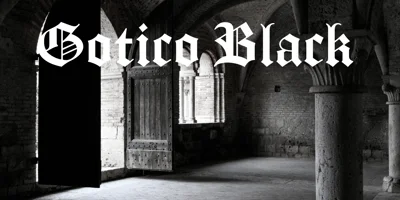
Gotico Font
Gotico Font is ideal for cathedral architecture signage, medieval manuscript reproductions, religious ceremony materials, historical document designs, gothic revival branding, monastery gift shop graphics, ecclesiastical publishing, heritage museum displays, sacred music album covers, and any reverent project that honors the magnificent tradition of Gothic architectural and typographic heritage.
What makes Gotico Font exciting is its authentic recreation of medieval blackletter craftsmanship that transports viewers to the soaring heights of Gothic cathedrals and illuminated scriptoriums. This typeface embodies the spiritual devotion of medieval scribes with carefully constructed letterforms that echo the vertical aspirations of Gothic architecture and the sacred beauty of handwritten psalters. The font's ecclesiastical character makes it perfect for brands and projects that want to communicate tradition, reverence, and the timeless majesty of sacred artistry.
The Gotico Font family includes multiple weights and historical variations, featuring regular, bold, and ornamental versions along with decorative initials, religious symbols, and alternate characters inspired by authentic medieval manuscripts. This comprehensive collection allows designers to create historically accurate typography that maintains the font's signature sacred character while providing flexibility for various religious and heritage design applications.
When exploring authentic medieval typography, Gotico Font offers designers an exceptional opportunity to work with a typeface that genuinely captures the spirit of Gothic craftsmanship and religious devotion. This font demonstrates meticulous attention to historical accuracy, with letterforms carefully researched and crafted to reflect the authentic character of medieval blackletter traditions and monastic calligraphy.
Professional designers value Gotico Font for its ability to instantly establish historical authority and spiritual gravitas across various media platforms. The font's sacred character makes it particularly effective for religious institutions, heritage organizations, and cultural projects seeking to communicate reverence, tradition, and the enduring power of medieval artistic excellence.
The timeless appeal of Gotico Font lies in its perfect representation of Gothic spirituality and medieval craftsmanship that continues to inspire awe and reverence in contemporary audiences. This typeface serves as a powerful connection to our religious and cultural heritage, making it invaluable for projects seeking to honor the sacred traditions and artistic achievements of medieval civilization.
For creative professionals passionate about historical authenticity and sacred design, Gotico Font represents the ultimate typography solution that brings genuine Gothic majesty and medieval spirituality to any project, ensuring every application reflects the divine inspiration and masterful craftsmanship that define Gothic artistic tradition.